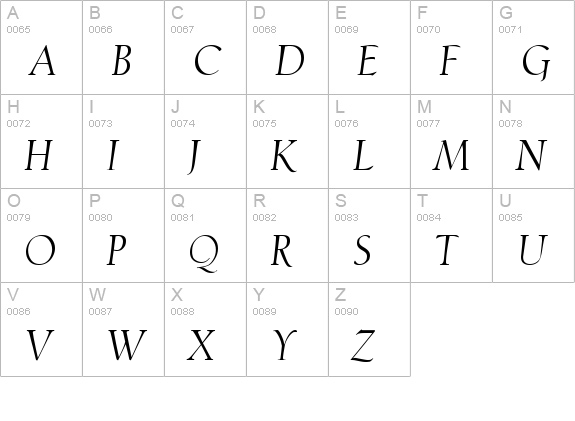
CosenzaItalic is an elegant and sophisticated font that exudes a sense of timeless beauty and charm. Its graceful curves and delicate serifs give it a refined and luxurious feel, making it perfect for adding a touch of class to any design project. Whether used for invitations, logos, or branding materials, CosenzaItalic is sure to make a lasting impression. The best part? CosenzaItalic is available for free download at FontsMarket.com, making it accessible to all designers looking to elevate their work with a touch of elegance. Don't miss out on this exquisite font that will effortlessly elevate your designs to new heights. Download CosenzaItalic today and experience the beauty of timeless typography for yourself.